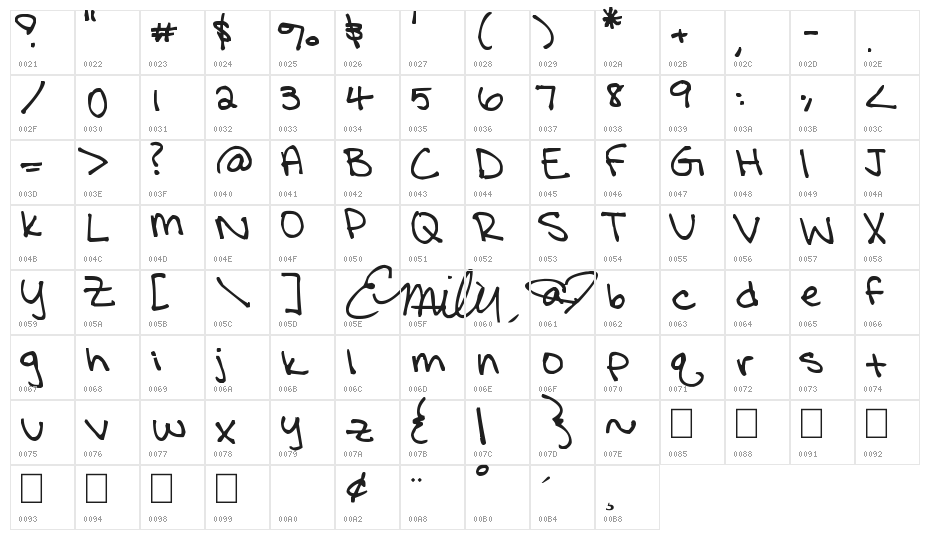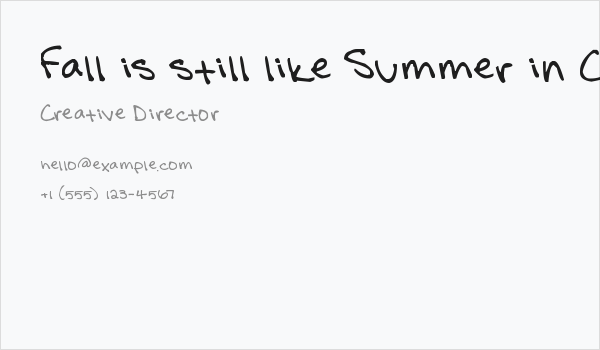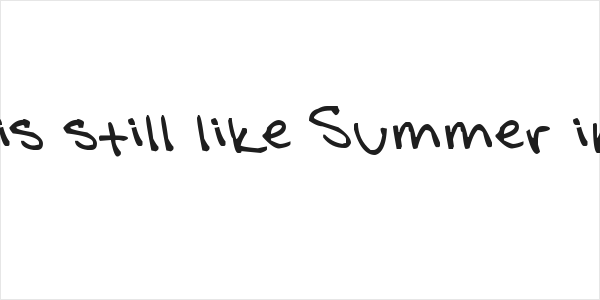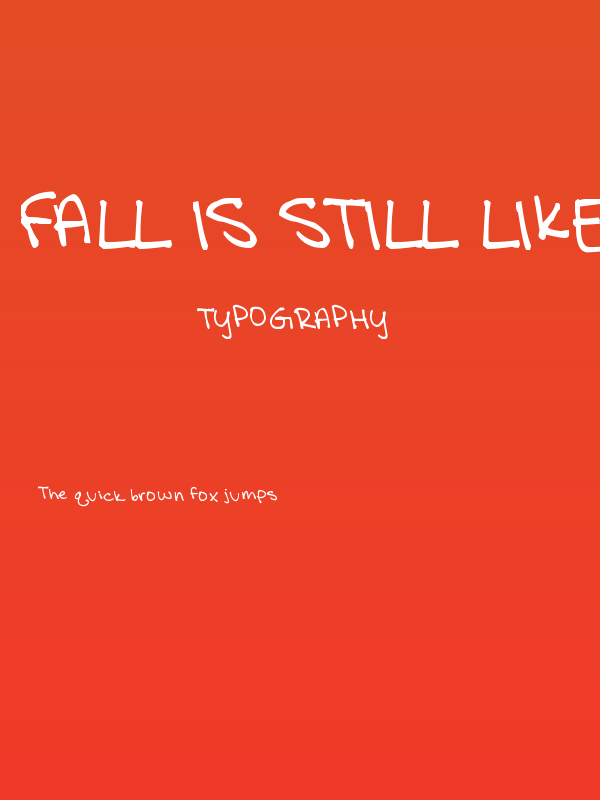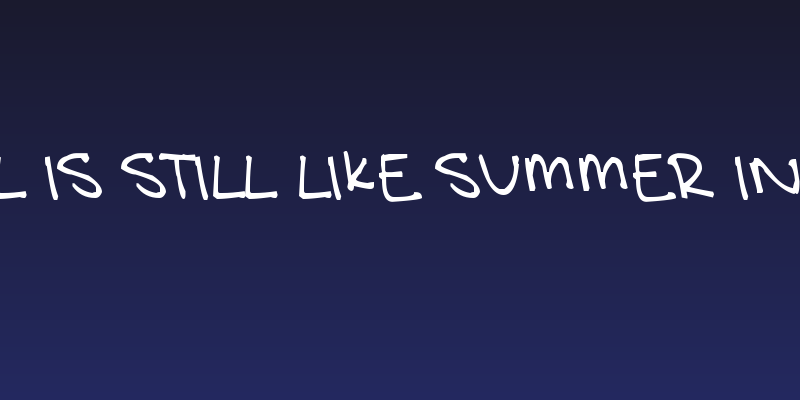
Fall is still like Summer in Ca Font
Fall is still like Summer in Ca Description
This font exudes a playful and casual handwritten style, characterized by its irregular, slightly uneven strokes that mimic the natural flow of handwriting. The letters are bold and rounded, with a friendly and approachable appearance. The uppercase and lowercase letters maintain a consistent style, enhancing readability while retaining a whimsical charm. Numbers and special characters are crafted with the same playful touch, making them blend seamlessly with the alphabet. This font is perfect for projects that require a personal, informal touch, such as greeting cards, children's books, or creative posters.
| Proposed Projects | Ideal for greeting cards, children's books, creative posters, and informal branding. |